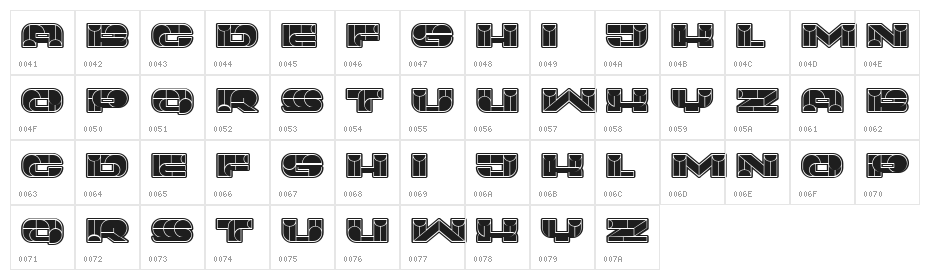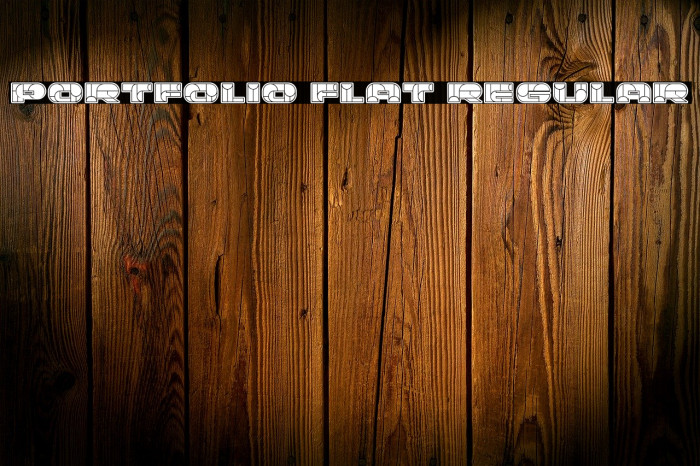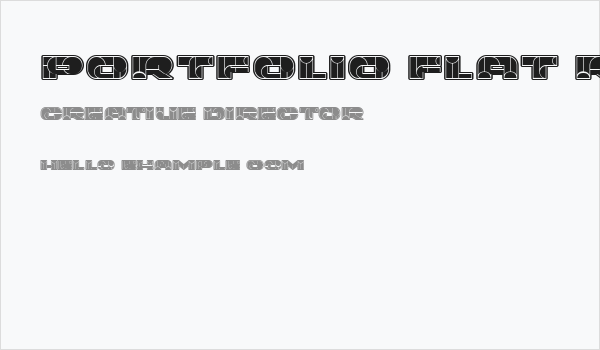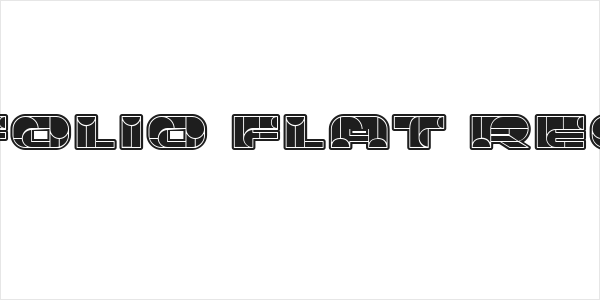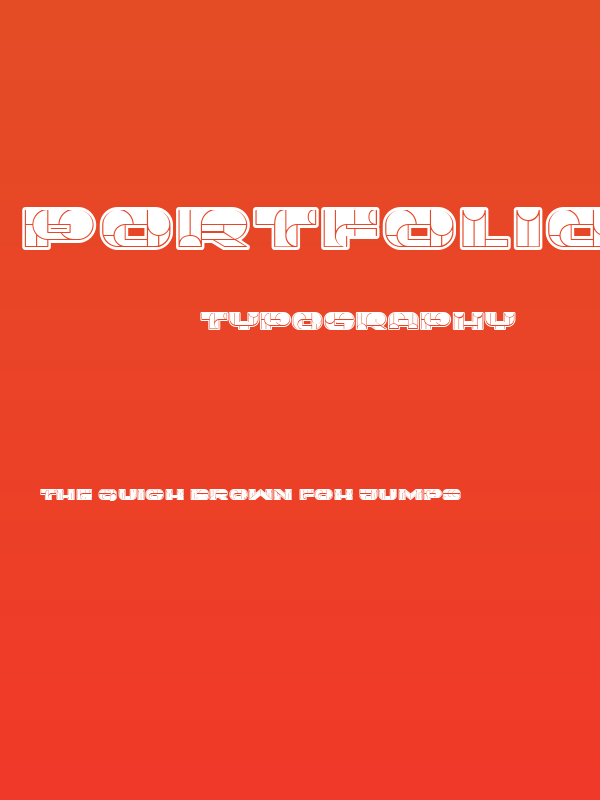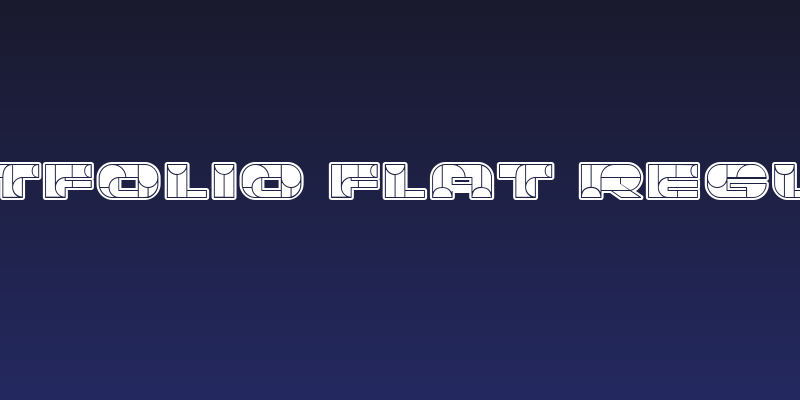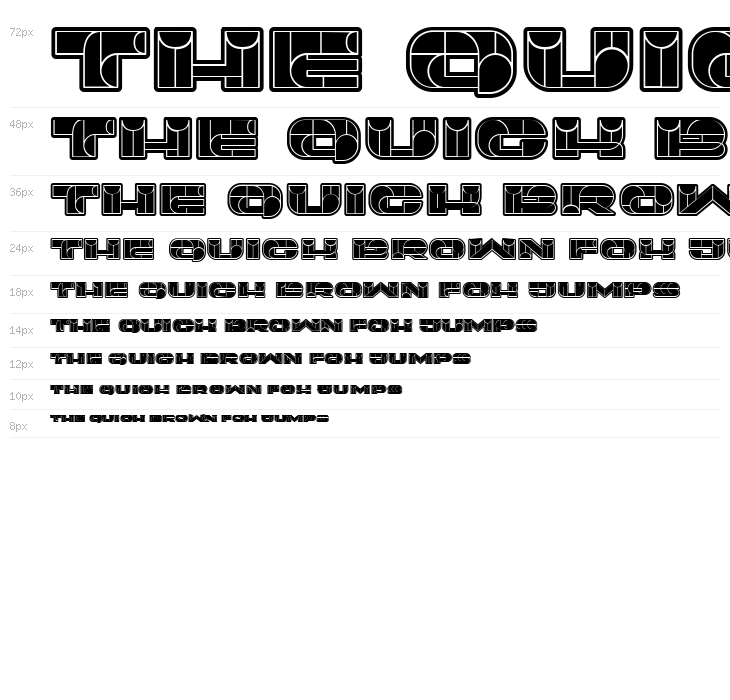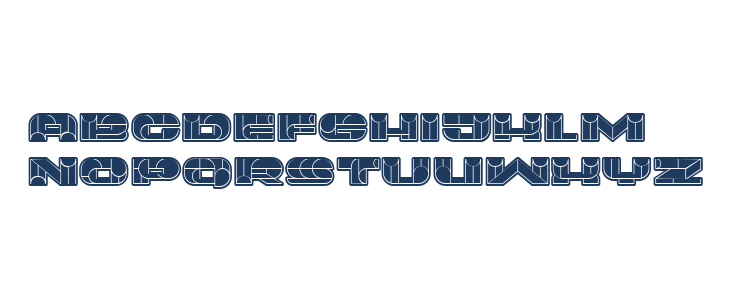
Portfolio Flat Regular Font
This font features a bold, geometric design with a distinct three-dimensional effect. Each character is crafted with a combination of solid and outlined segments, creating a layered appearance that adds depth and visual interest. The uppercase letters are uniform in height and width, contributing to a cohesive and structured look. The font's style is reminiscent of retro-futuristic aesthetics, making it ideal for projects that require a striking and memorable visual impact. Its unique construction and bold presence make it suitable for headlines, posters, and branding materials where attention-grabbing typography is essential.
| Overall Style | Retro-Futuristic |
| Use Case | Headlines, Posters, Branding |
| Proposed Projects | Ideal for use in posters, branding, headlines, and any design needing a bold, eye-catching font. |